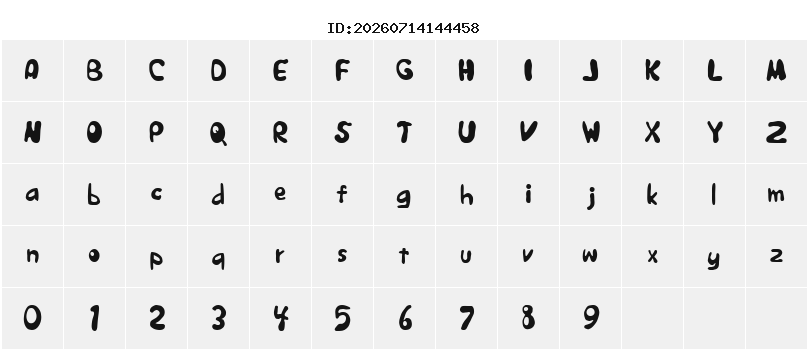
Japestyle Preview
• Font Name: Japestyle
• Font Style: Plain
• Font ID: Altsys Fontographer 3.3 Japestyle Plain
• Full Font Name: Japestyle Plain
• Version: Altsys Fontographer 3.3 7/12/95
• PostScript Name: Japestyle Plain
• Character Count: 244
About Japestyle.ttf
Japestyle.ttf is a modern, elegant sans-serif font designed for ultimate readability and visual harmony. Perfect for branding, headlines, web design, and print materials.